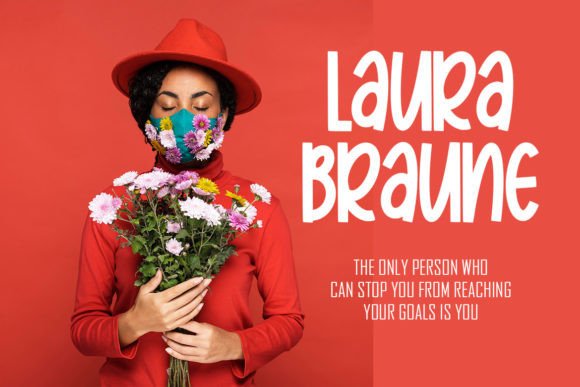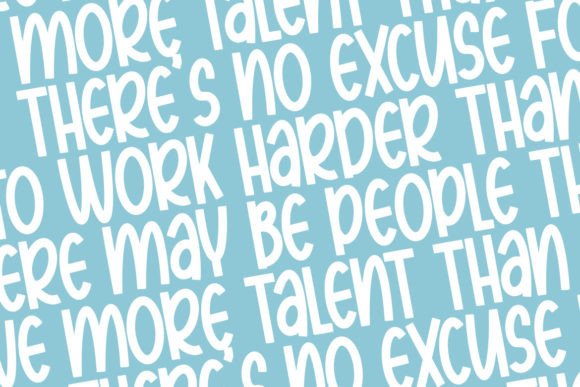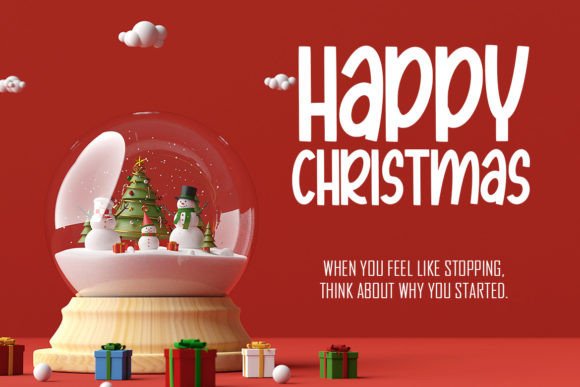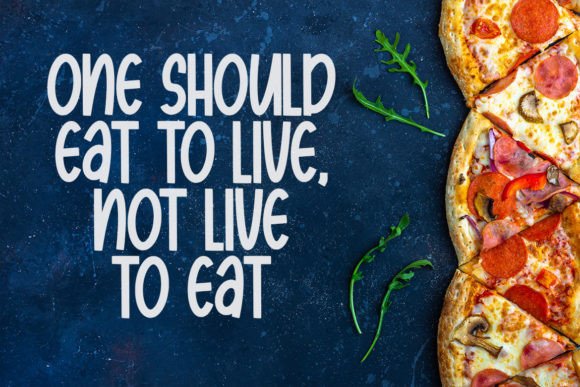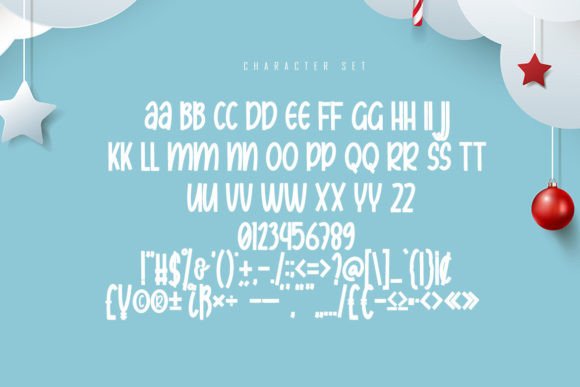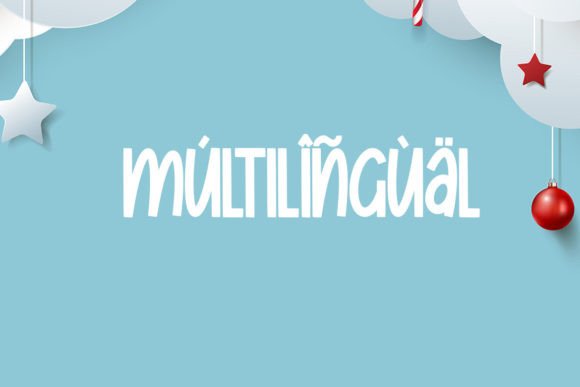
Introduction to Labreak Font Font
Fonts play a crucial role in design, and the Labreak Font font is a typeface that brings both character and versatility to any project. Whether you’re working on a branding project, a website, or a print design, the Labreak Font font offers a unique style that can elevate your work.
Labreak is a playful sans serif font.
It has a friendly and casual look Itβs a great font for fashion, signatures, logos, magazines, and social media.
Key Features of Labreak Font Font
Why Choose Labreak Font Font?
The Labreak Font font is more than just a typeface β it’s a design tool that helps you communicate your message with style and clarity. Its unique character set and versatile design make it suitable for a wide range of applications, from elegant invitations to bold headlines.
With its carefully crafted letterforms and balanced proportions, the Labreak Font font ensures readability and visual appeal across all mediums.
What makes Labreak Font font special?
The Labreak Font font stands out with its unique design, exceptional readability, and versatility across various design applications.